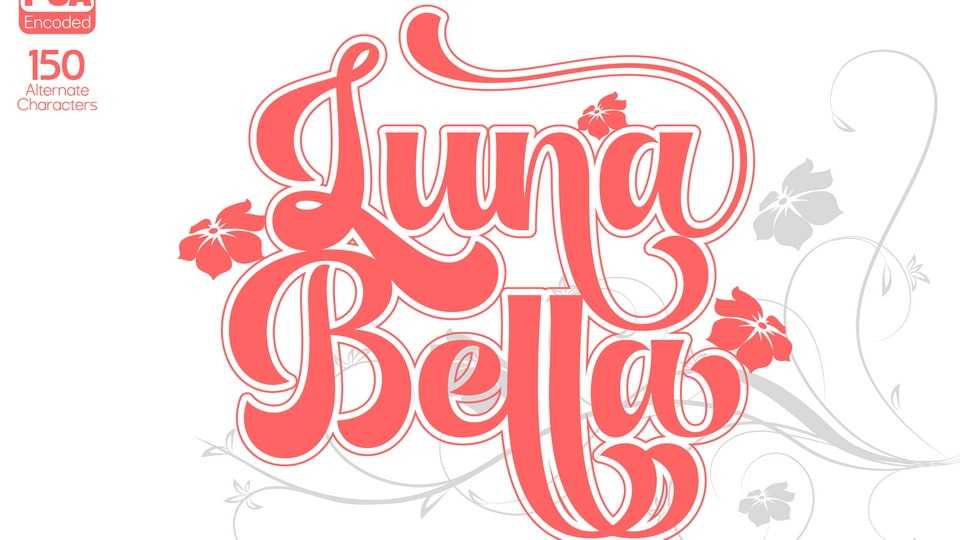
Download Luna Bella font, a vintage and bold handwritten typeface. Luna Bella font has many alternate characters which will make it easy for you when choosing a style for each design project.
Designer: SIGN Studio